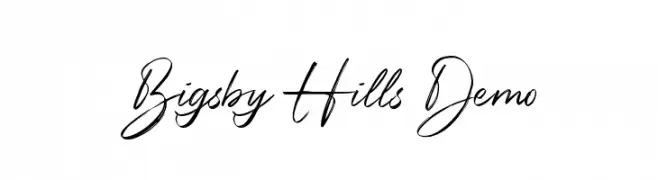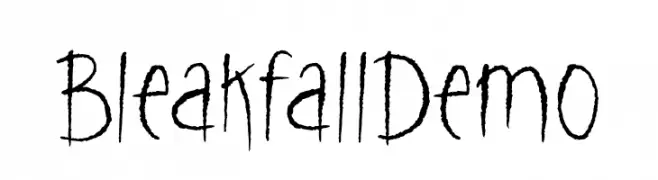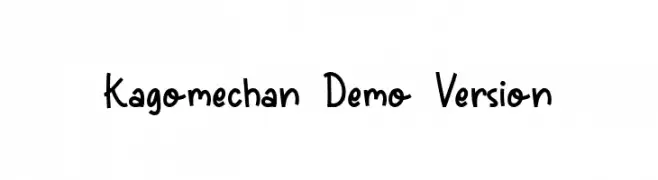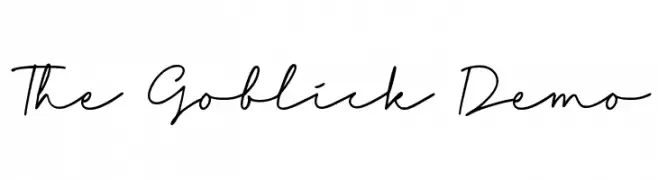
A bold, graffiti-inspired font with sharp, angular lines and dynamic energy.
A playful, hand-drawn font with bold strokes and subtle serifs.
A dynamic and fluid handwritten font with elegant cursive strokes.
A playful, elegant handwritten font with fluid cursive letterforms.
A hand-drawn, rustic font with tall, narrow characters and an artistic, organic texture.
An artistic, calligraphic font with flowing strokes and elegant curves.
A dynamic and elegant script font with fluid, sweeping strokes.
A fluid, cursive handwritten font with a delicate and elegant style.
A playful, casual handwritten font with smooth, rounded letterforms.